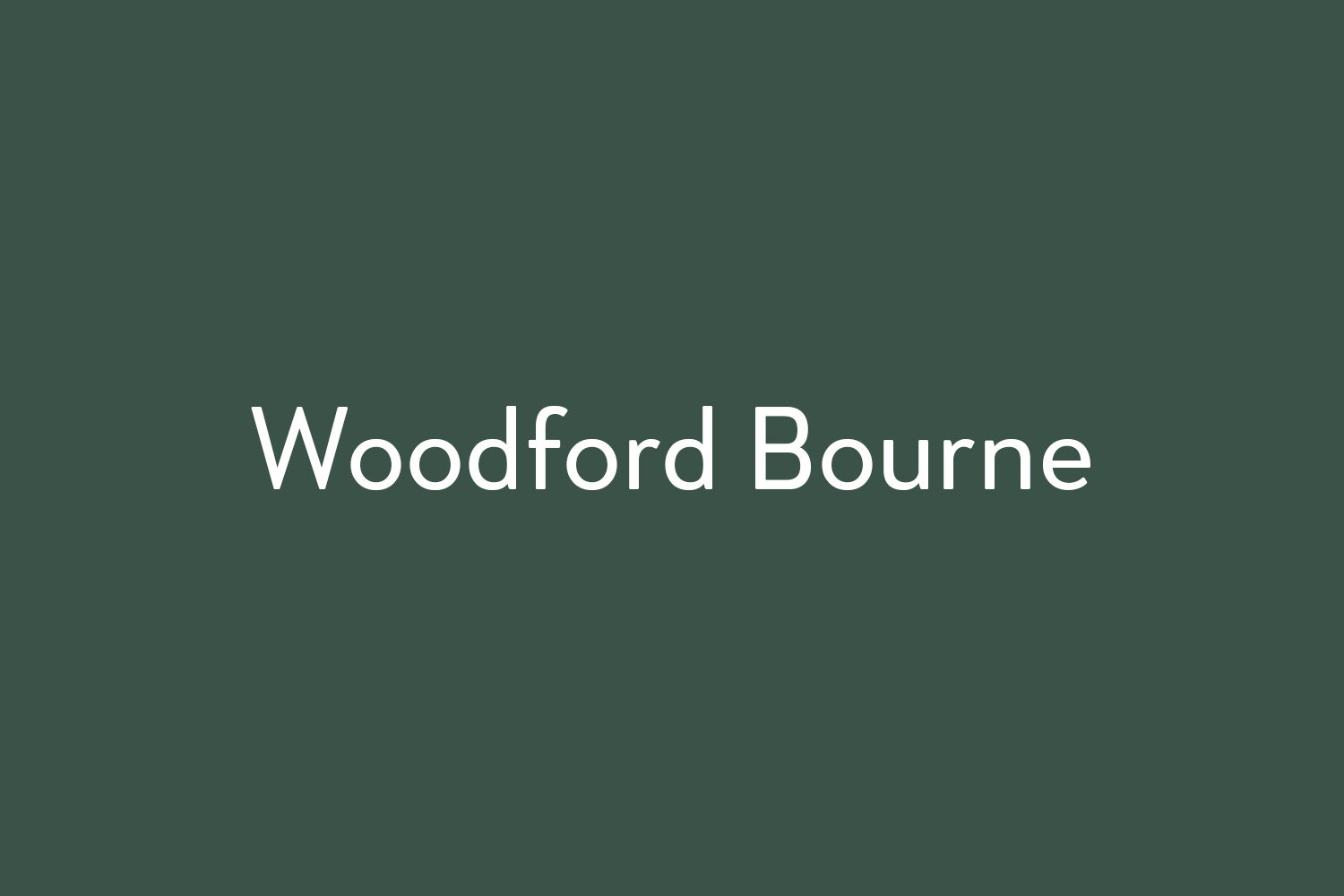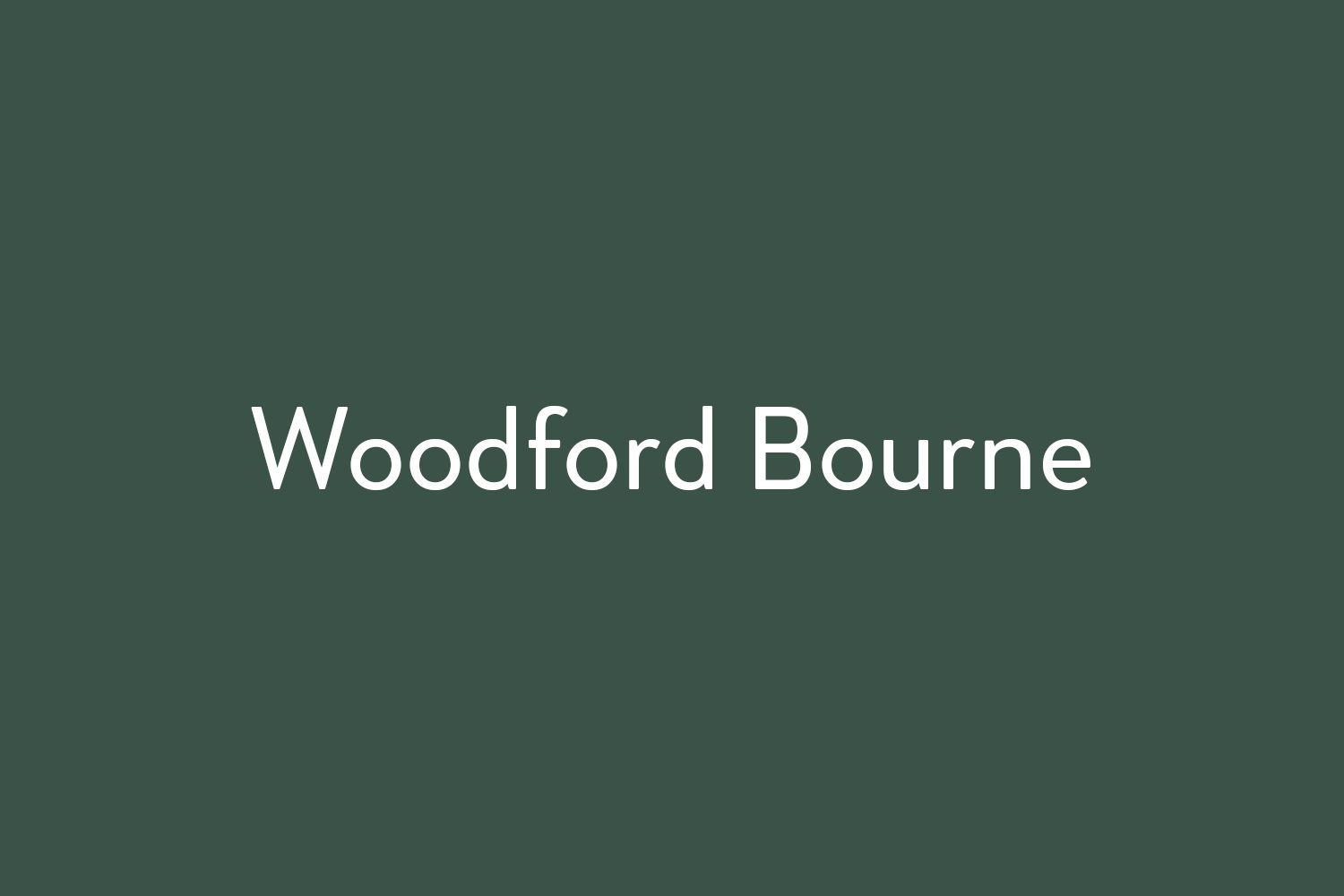
Woodford Bourne Free Font Family is a brand new 19th-century grotesque typeface. The design is a tribute to the historic stone cast type in the building façades of the former Woodford, Bourne & Co. in Cork City, Ireland. For many years I had admired the type’s simplicity and strength, so I decided to faithfully reproduce those letters and expand them to a fully working font with 500 glyphs per case.
A key feature of Woodford Bourne is the ability to change the feel of your typography with just one click. Switch from contemporary to vintage style by selecting “Stylistic Set 1” – this gives Woodford Bourne a unique versatility which I am sure you will enjoy playing with your designs.
It is a solid, reliable “workhorse” font family that reproduces well at all sizes… it’s also great for branding and identities.
Key features:
• Woodford Bourne is a vintage geometric sans, optically adjusted for improved aesthetics and legibility
• Rounded corners soften its appearance, making for a “friendly face”
• 2 FONTS IN 1 – Use contemporary character set, or switch to vintage style with stylistic sets
• 9 Weights in Roman and Italic: Hairline, Thin, Light, Regular, Medium, SemiBold, Bold, Black, and Ultra
• Full European character set
• 500 glyphs per case